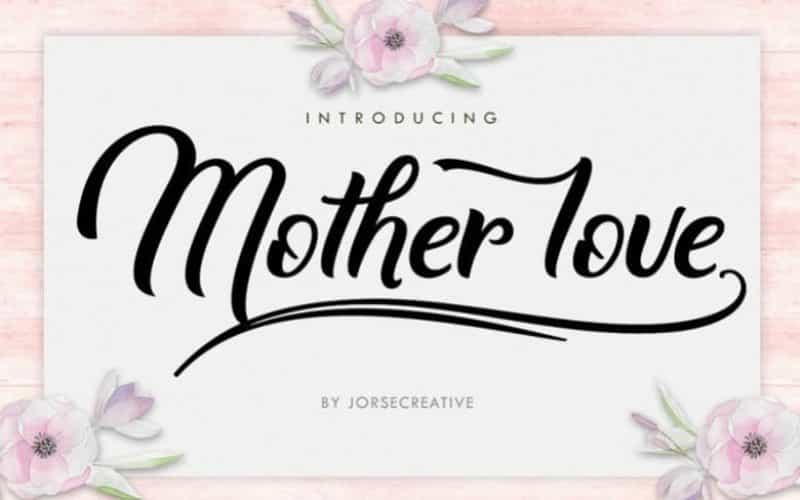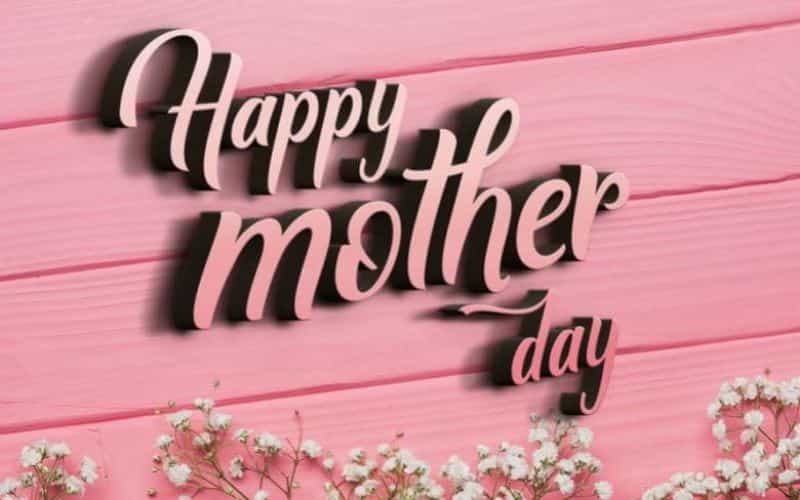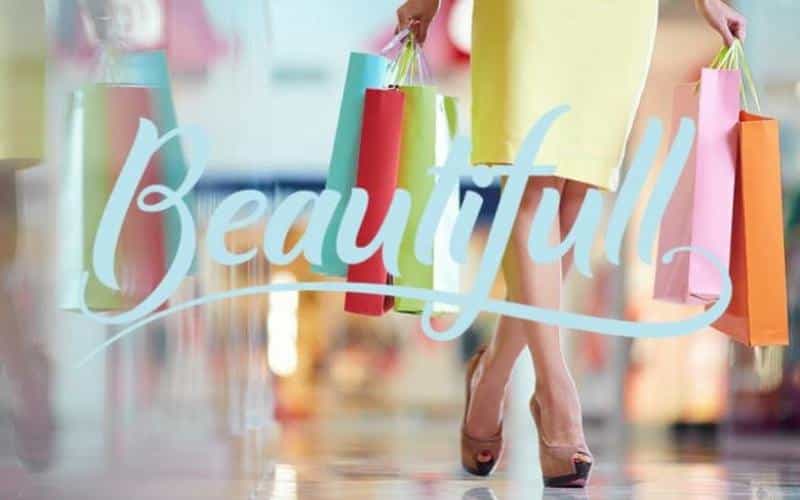
Mother love is another gorgeous example of the contemporary calligraphy typefaces, which is a combination of the classic calligraphy style and the modern style. It combines the old copperplate type with the new contemporary typeface with a dancing baseline, and the modern and elegant touch.